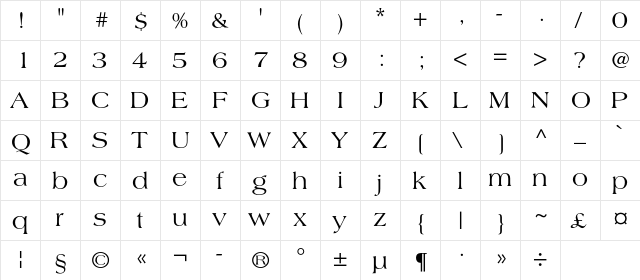
LagunaC Regular
Design Context for LagunaC Typeface
LagunaC offers clean, dependable letterforms without strong stylistic allegiance, making it a practical choice for designers who need flexibility.